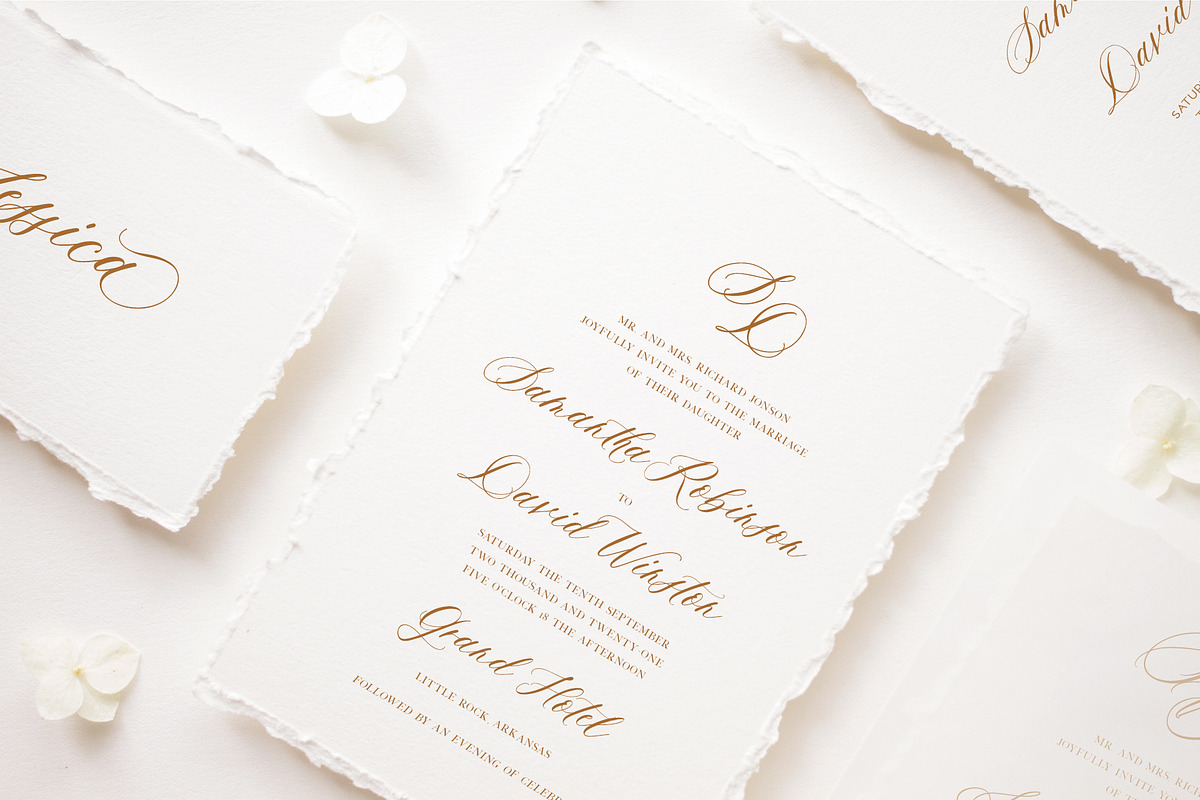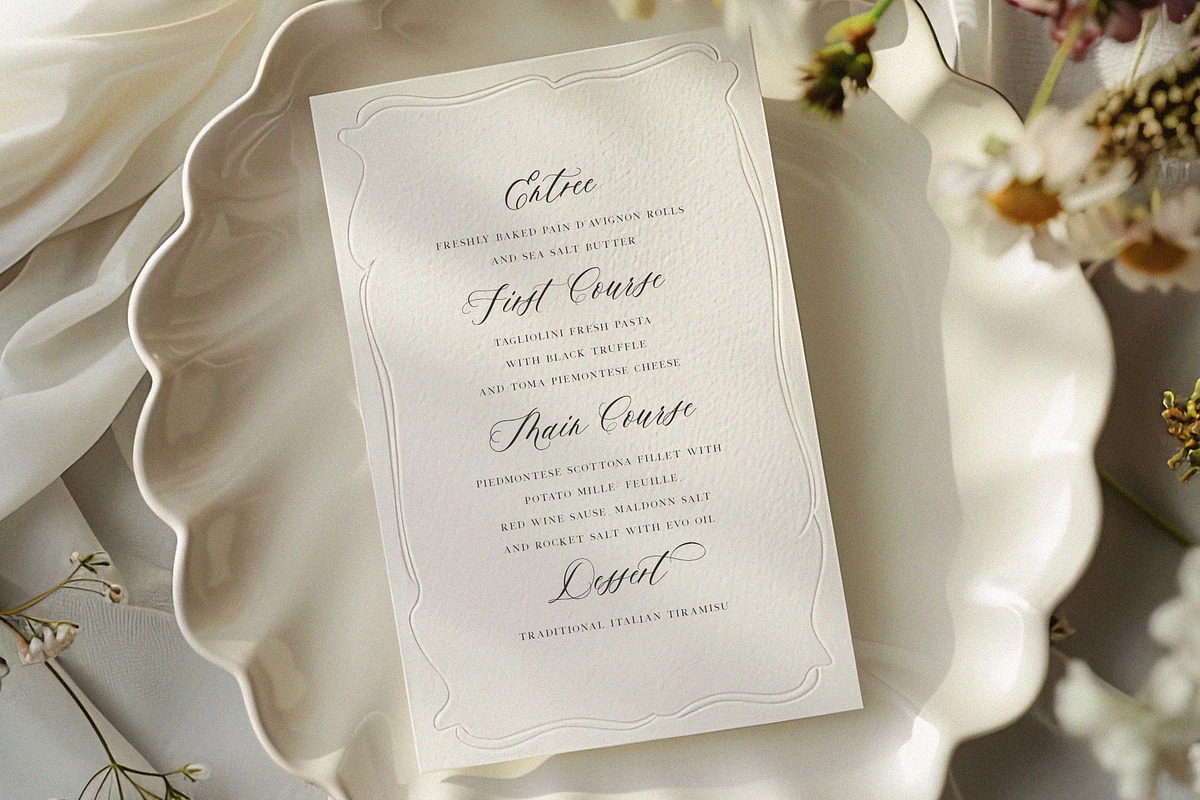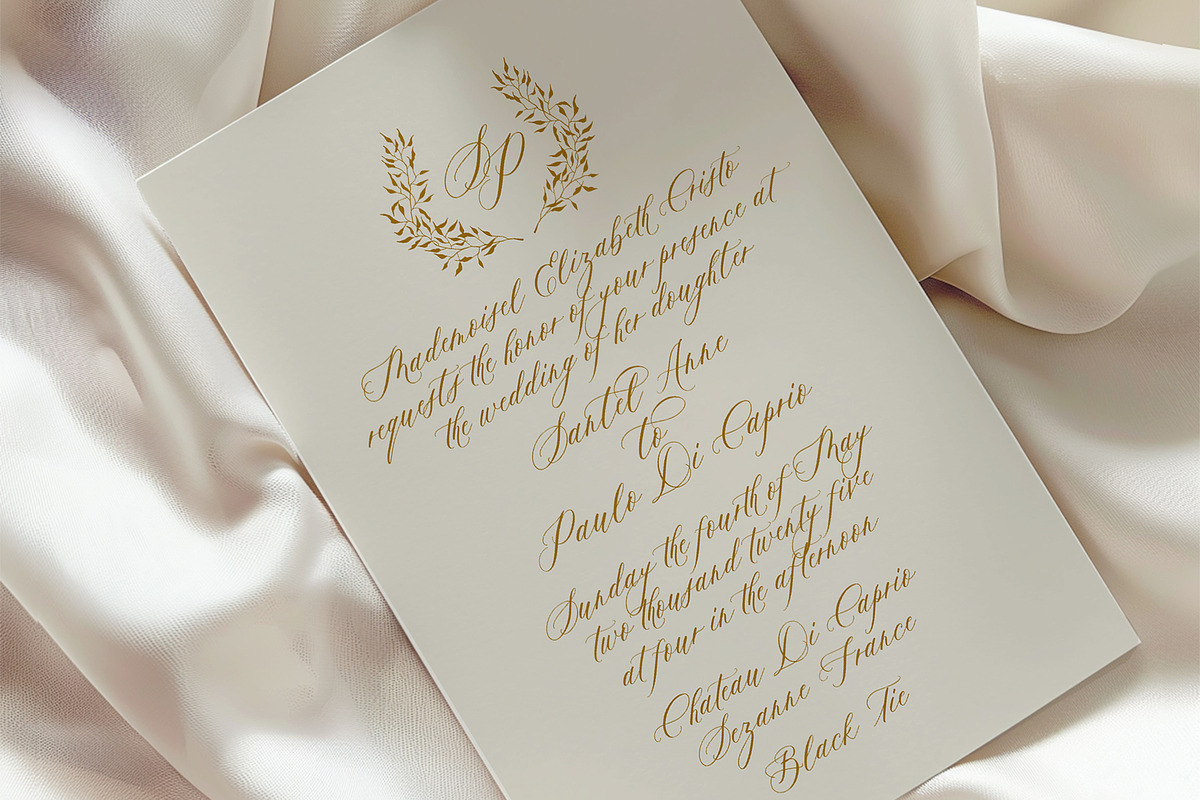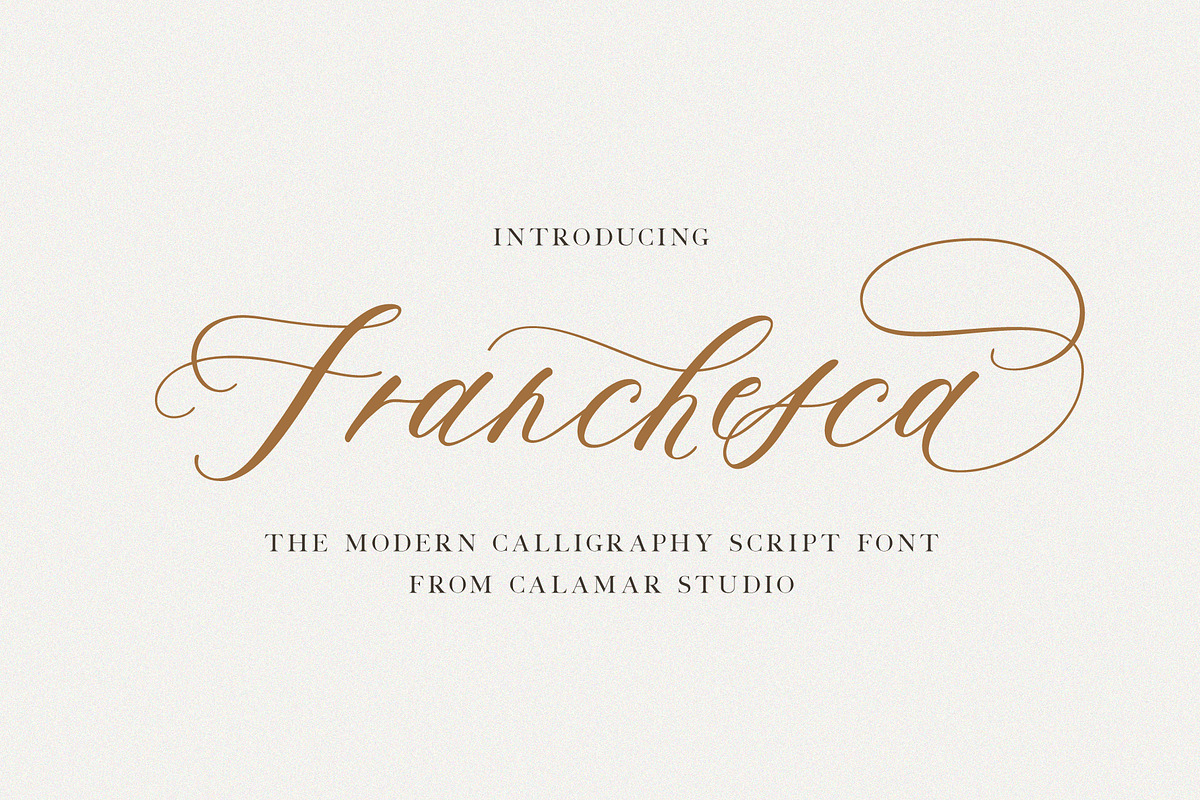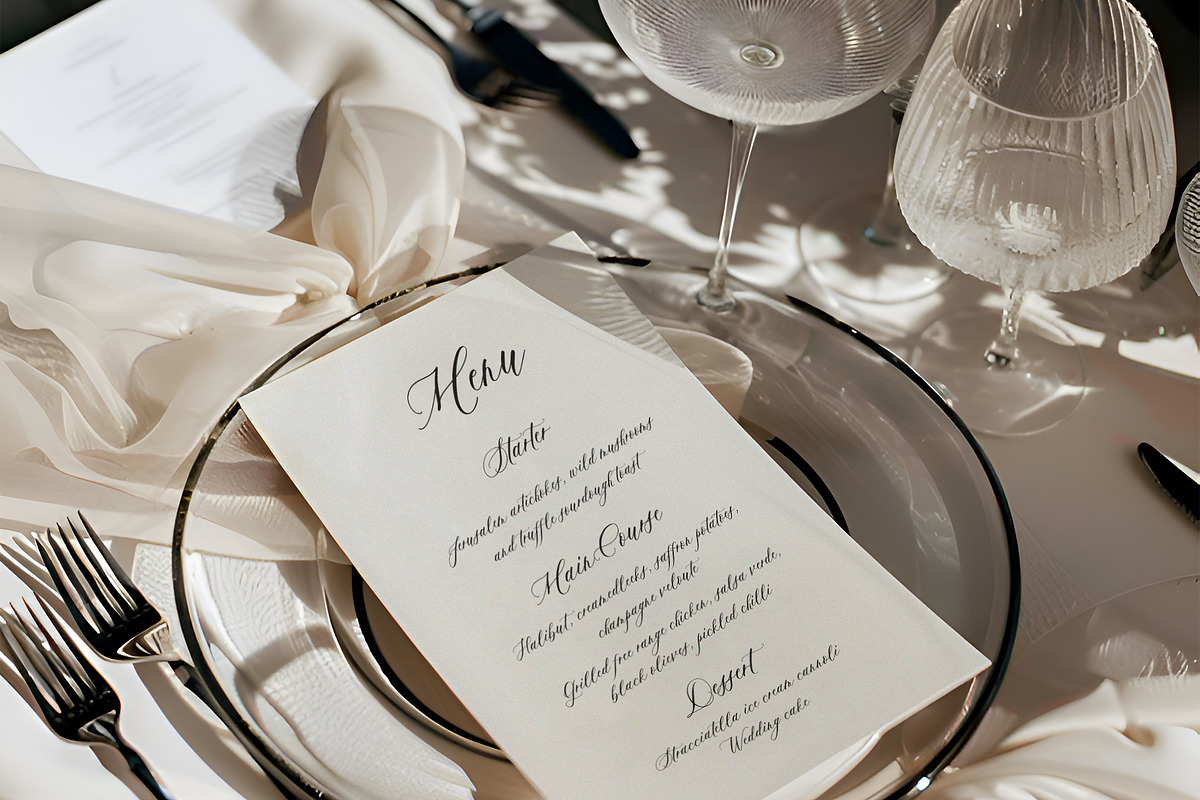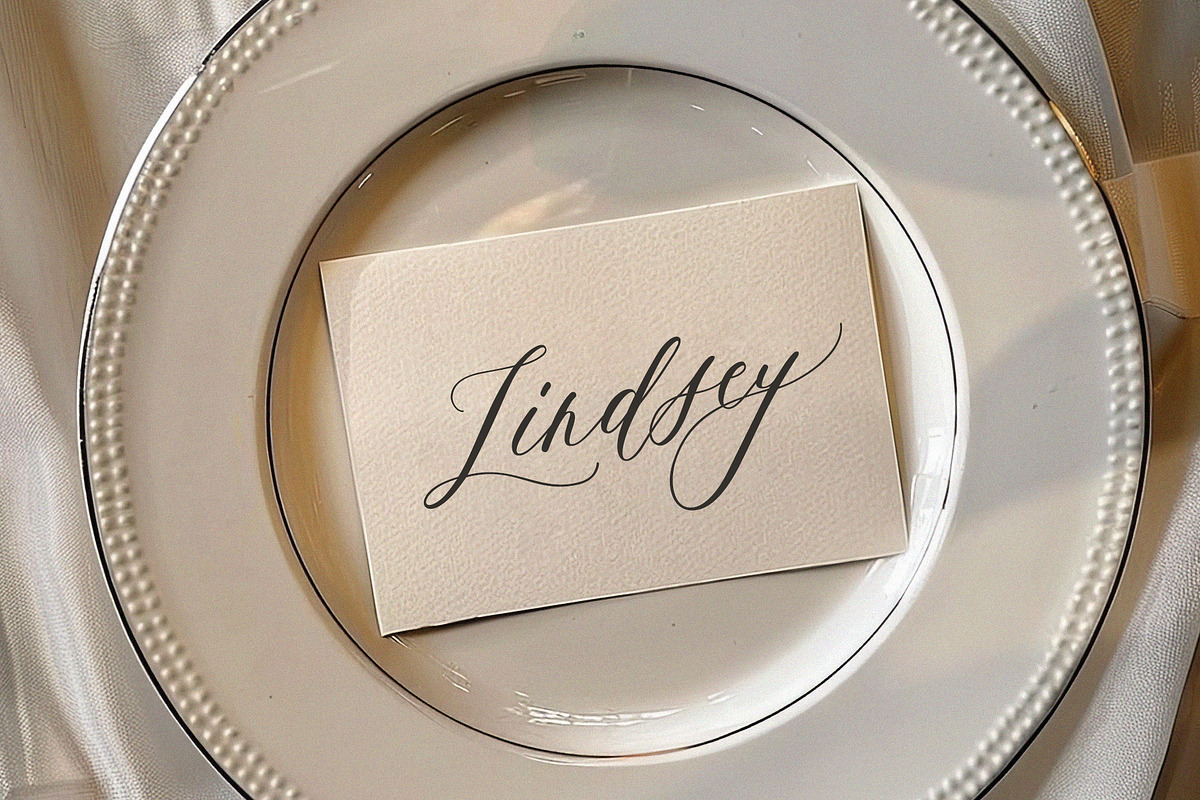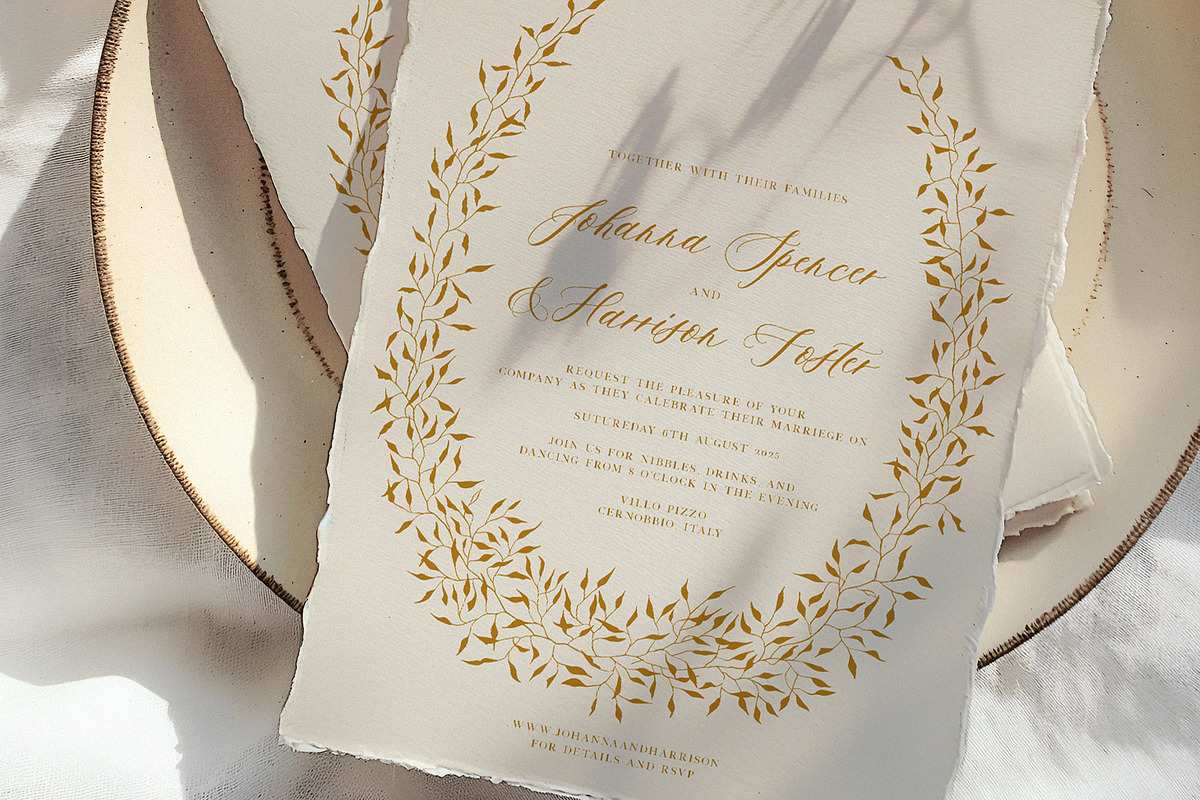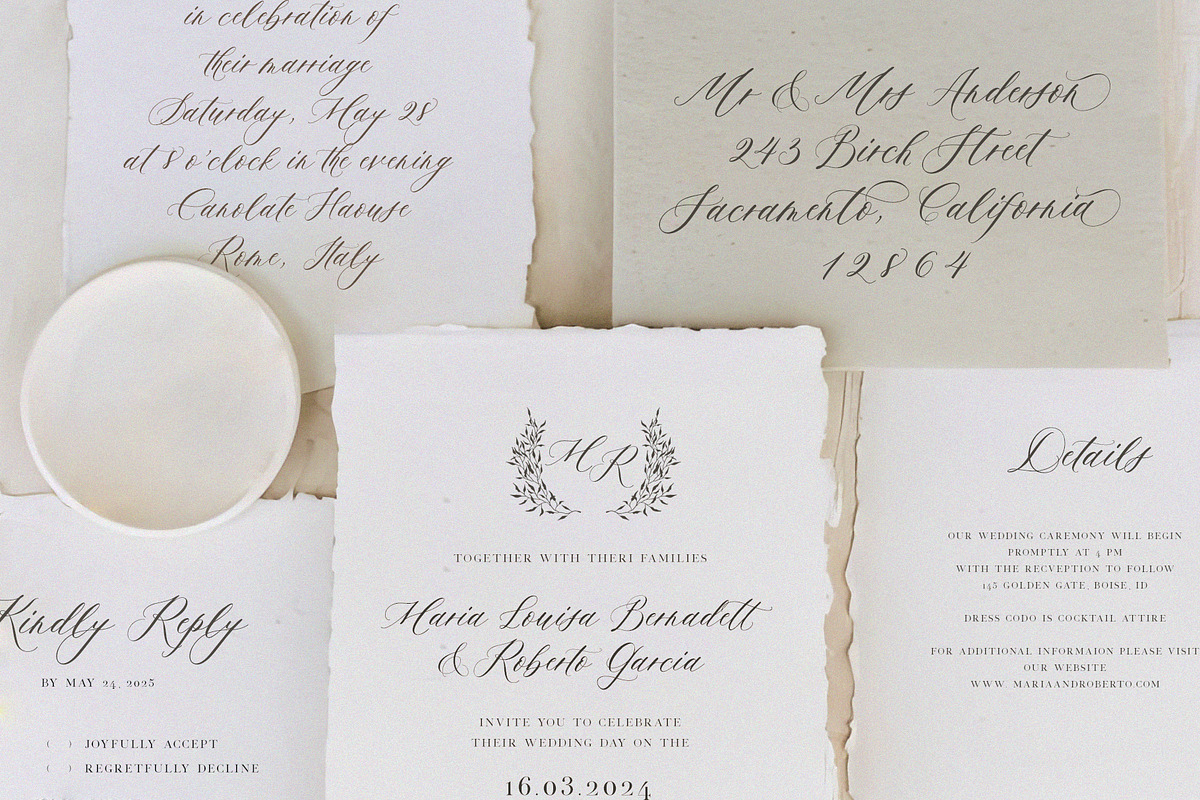
Franchesca |Wedding Calligraphy Font
Meet Franchesca, a light wedding calligraphy script created in a modern calligraphy style. The font includes a two sets of uppercase letters and a range of alternative lowercase letters with swashes for unique handwritten calligraphy look.
Franchesca is a perfect script for a wedding stationery, elegant logos and branding, websites, calligraphy quotes, and more! Please